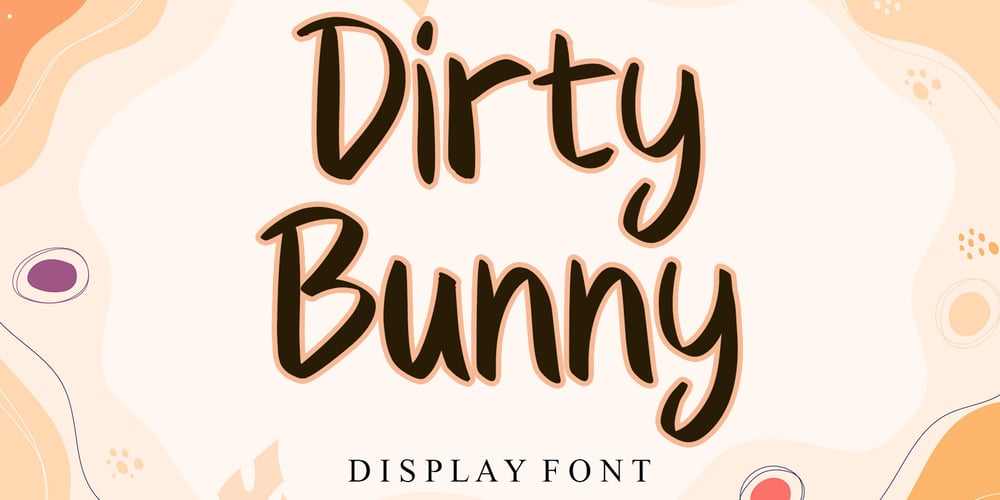
Dirty Bunny Font Family was designed by Ahmad Afandi and published by Letterafandi Studio. Dirty Bunny contains 2 styles and family package options. Dirty Bunny is a Display font. That font is perfect for ; logos, greeting cards, a package design, a brand identity, craft design, any DIY project, book title, wedding invitation, packaging, another christmas project and more.